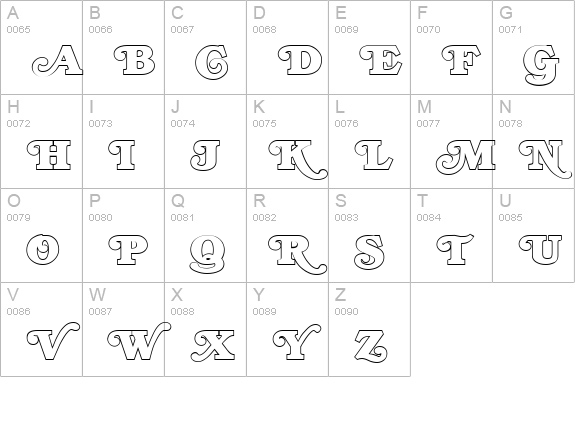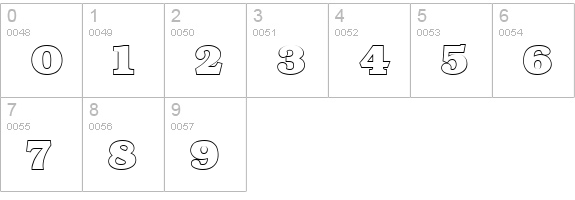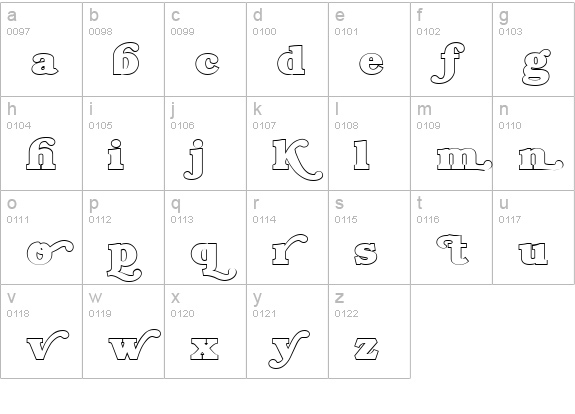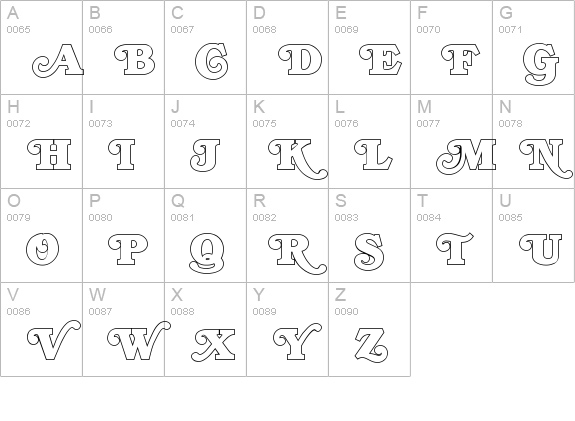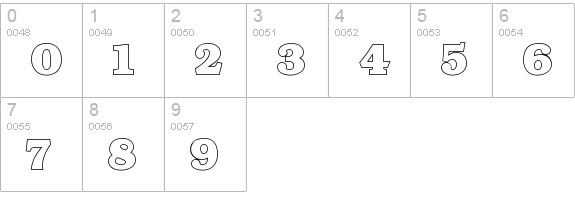
CamillaOpen is a stunning and elegant font that exudes sophistication and charm. With its graceful curves and delicate lines, this font is perfect for adding a touch of class to your designs. Whether you're working on a wedding invitation, a branding project, or any other creative endeavor, CamillaOpen is sure to impress. The best part? CamillaOpen is completely free to download at FontsMarket.com. That's right, you can elevate your designs with this beautiful font without spending a dime. So why wait? Download CamillaOpen today and take your projects to the next level.